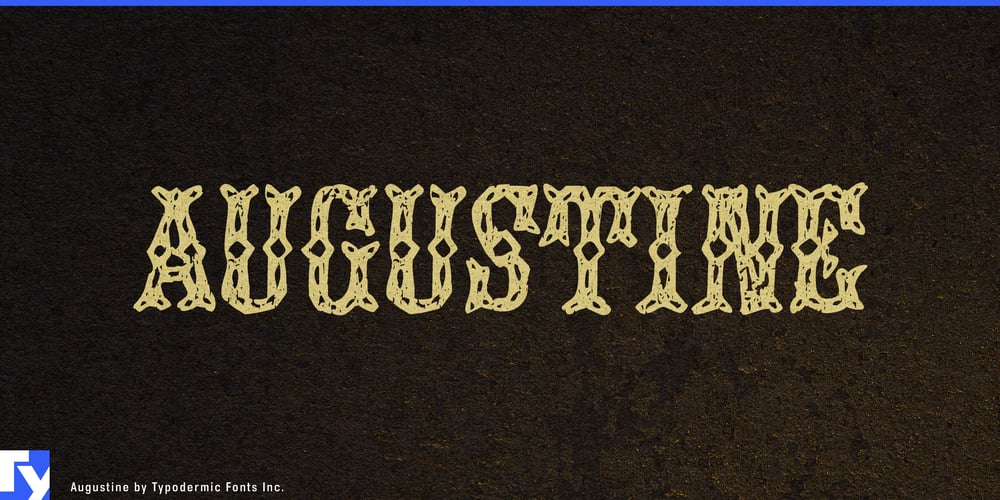
Augustine Font Family was designed by Ray Larabie and published by Typodermic. Augustine contains 1 styles and family package options. Step into the world of Augustine, where each letter is handcrafted. It’s a rebellion against the mundane, a celebration of the imperfect, and an invitation to slow down and savor every word.Augustine’s Tuscan-inspired design marries vintage charm with a contemporary twist, creating a visual feast that commands attention. Its homespun feel whispers of artisanal care, making every headline an artistic statement.But Augustine’s true magic lies in its ingenious ligatures. With a few keystrokes, common letter pairs transform into bespoke duos, elevating your text from mere words to visual poetry. This typeface doesn’t just communicate—it converses. Its complex design naturally slows the reader’s pace, ensuring your message isn’t just seen, but truly absorbed. In a world of fleeting glances, Augustine holds the gaze, inviting contemplation and connection.While Augustine speaks eloquently across a wide range of Latin-based languages, it reserves its voice for these scripts alone. This focused linguistic palette allows it to excel in its primary mission: turning text into art. Choose Augustine when you want your words to resonate long after they’re read. It’s for designers who understand that true impact comes not from shouting, but from creating something so intriguing that people can’t help but lean in for a closer look.Augustine isn’t just a font—it’s a conversation starter, a mood setter, and a testament to the enduring power of the handmade in a digital world. Let your typography speak volumes with Augustine, where every character tells a story.